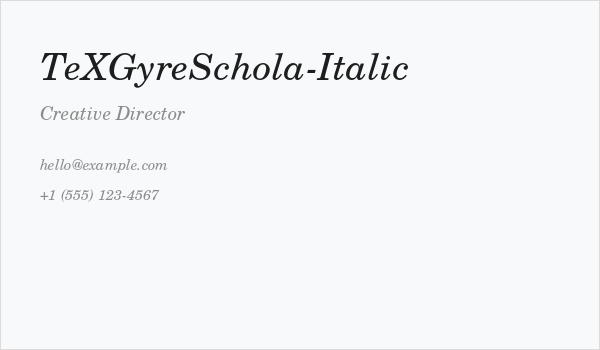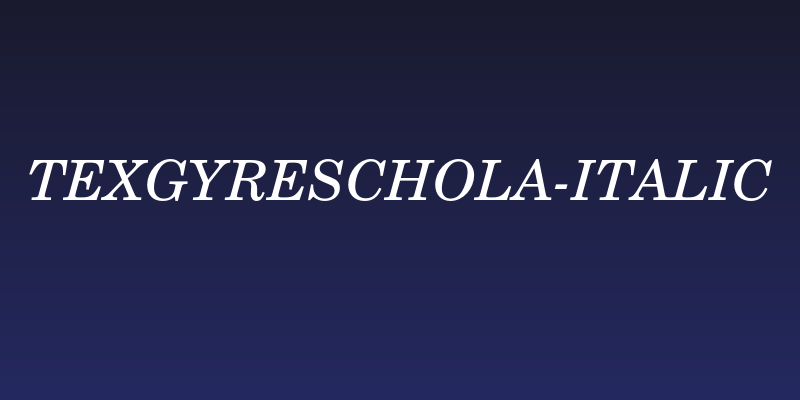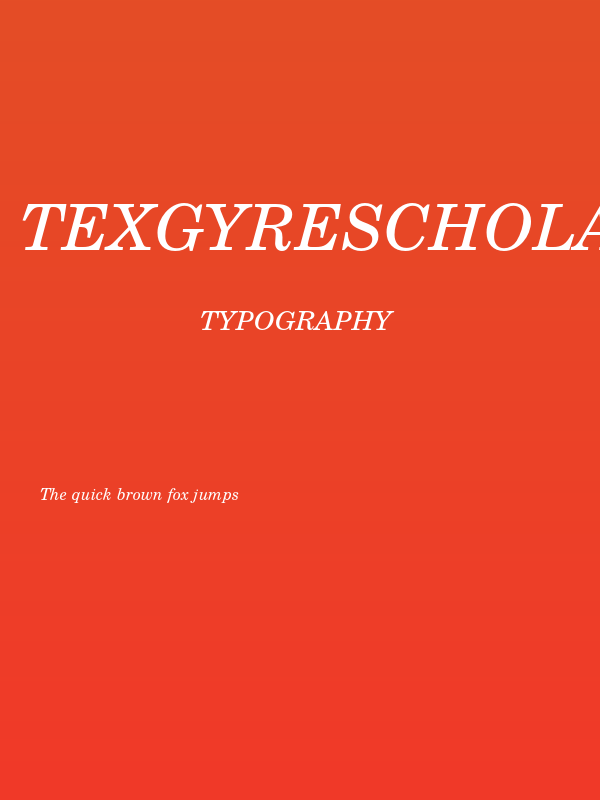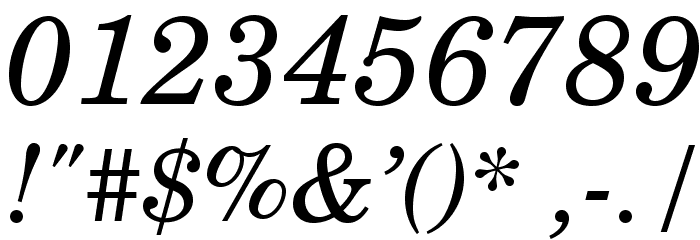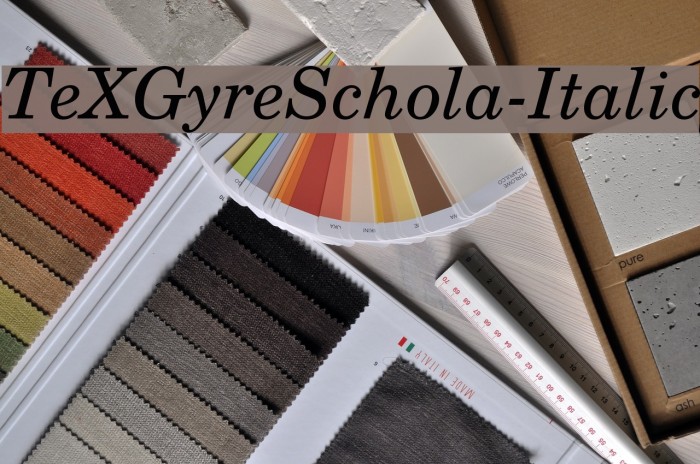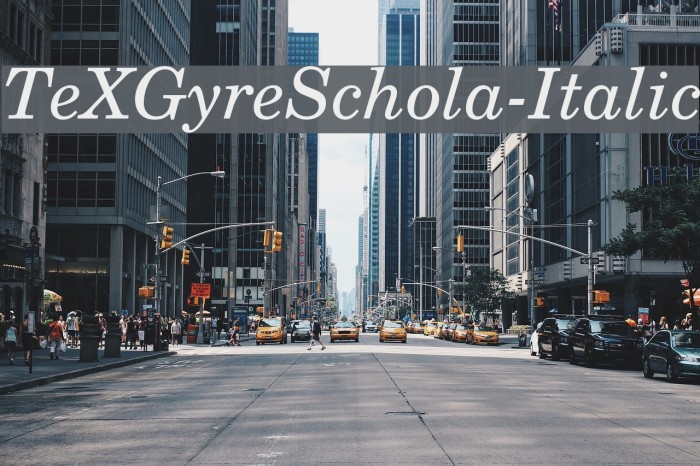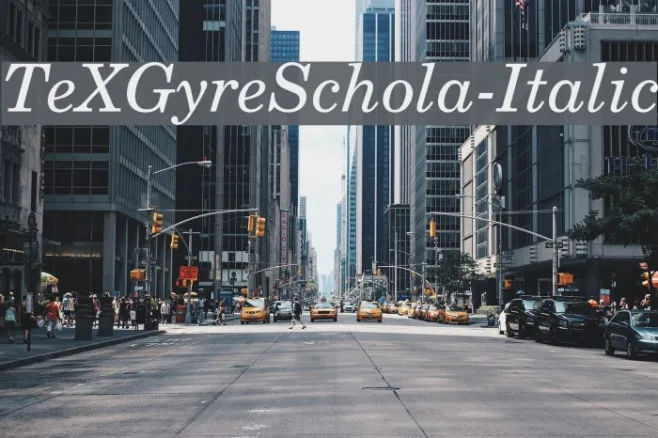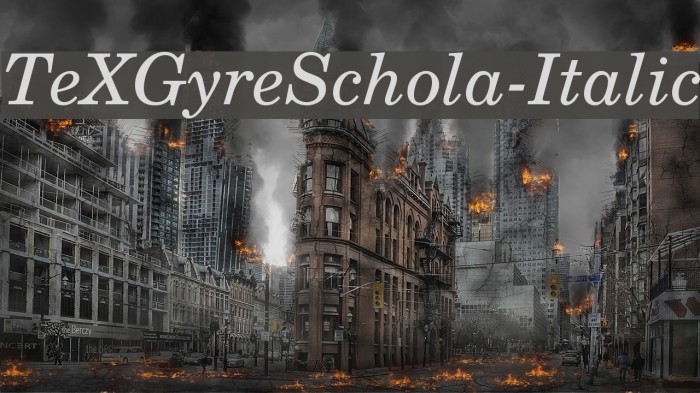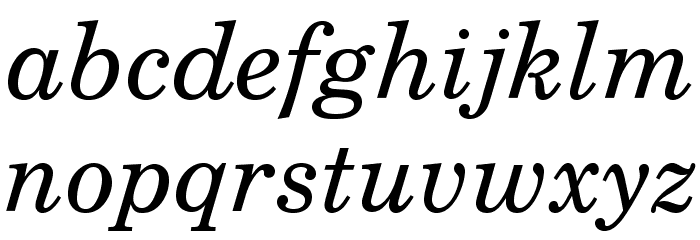
TeXGyreSchola-Italic Font
TeXGyreSchola-Italic Description
This font features a classic serif style with a distinct italic slant, offering an elegant and sophisticated appearance. The characters are well-proportioned, with smooth curves and sharp serifs that enhance readability. The uppercase letters are slightly taller than the lowercase, maintaining a traditional serif font structure. The numerals are clear and consistent, matching the overall style of the alphabet. Special characters are designed with the same attention to detail, ensuring they integrate seamlessly with the text. This font is versatile, suitable for both formal and creative projects.
| Overall Style | Classic |
| Use Case | Headlines, Body text, Logos |
| Proposed Projects | Ideal for editorial design, book covers, formal invitations, and branding materials. |